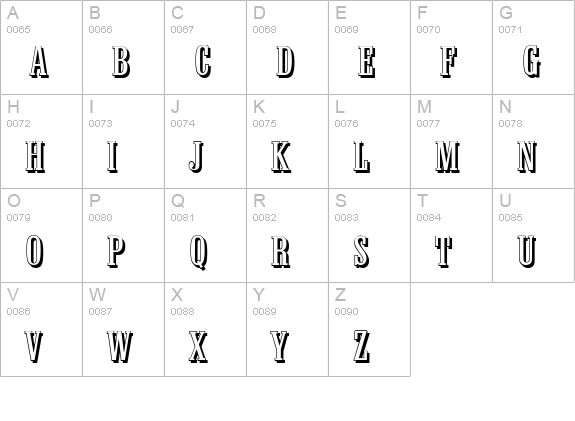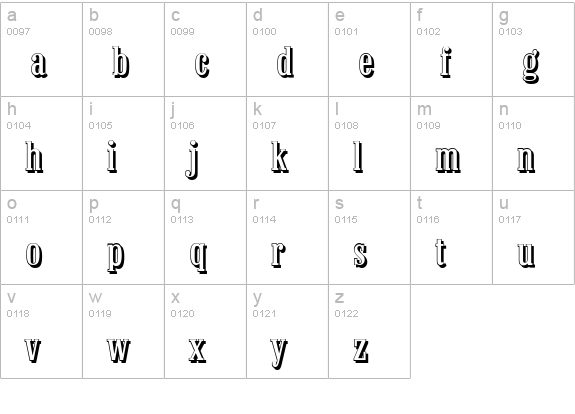
ColonelShadow-Regular Font Details
ColonelShadow-Regular is the standard, neutral variant in the ColonelShadow typeface family \xE2\x80\x94 well suited to general body text, paragraphs, and standard typographic work.
ColonelShadow-Regular font is a versatile typeface that exudes strength and authority. With its clean lines and bold strokes, this font is perfect for making a statement in any design project. Whether you are creating posters, logos, or headlines, ColonelShadow-Regular font is sure to command attention. Best of all, ColonelShadow-Regular font is completely free to download at FontsMarket.com. This means you can add this powerful font to your collection without any cost. Don't miss out on the opportunity to elevate your designs with ColonelShadow-Regular font, available for free download now!